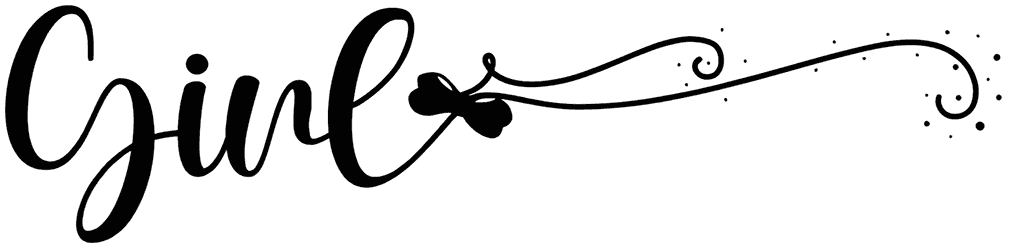
Girl Font
Introducing Girl, a charming, enchanted cursive font with a pleasant display and organic touch. It has a smooth texture that is harmoniously designed to give off love and passion.
It will grab everyone’s attention to your design in a second and captivate them with its beauty. This feminine font is ideal for wedding invitations, tattoos, movie posters, book covers, and every other project that needs a romantic taste.